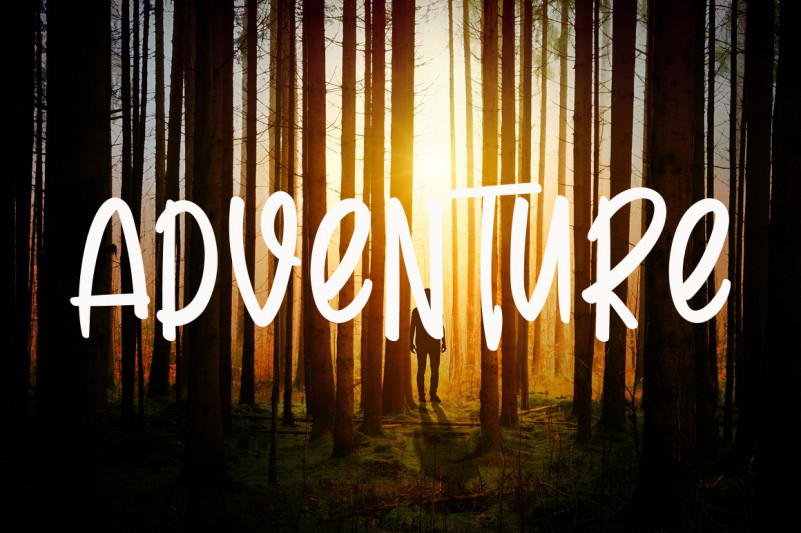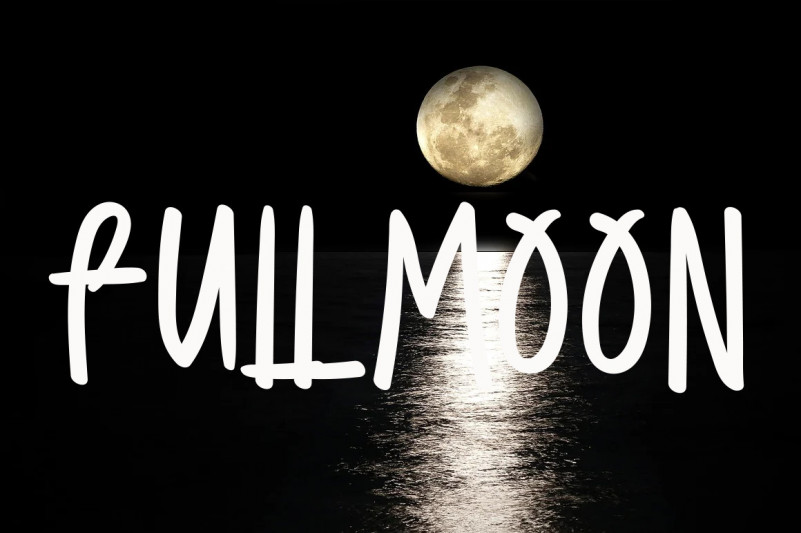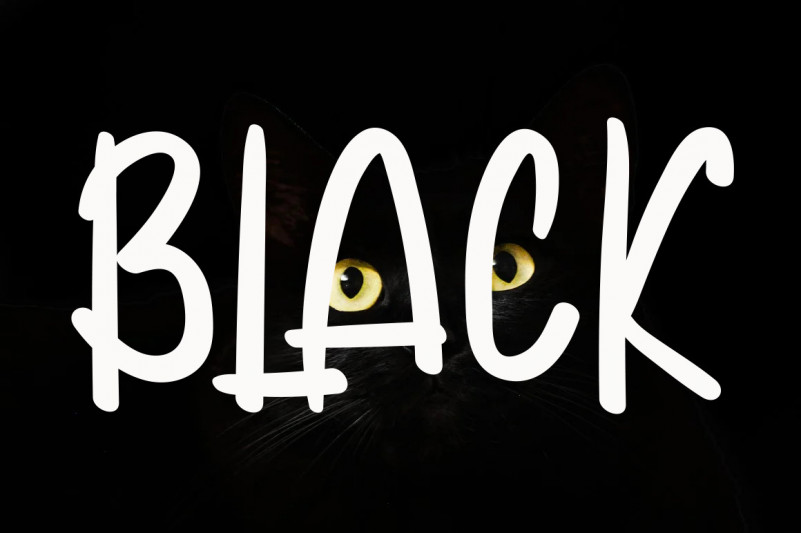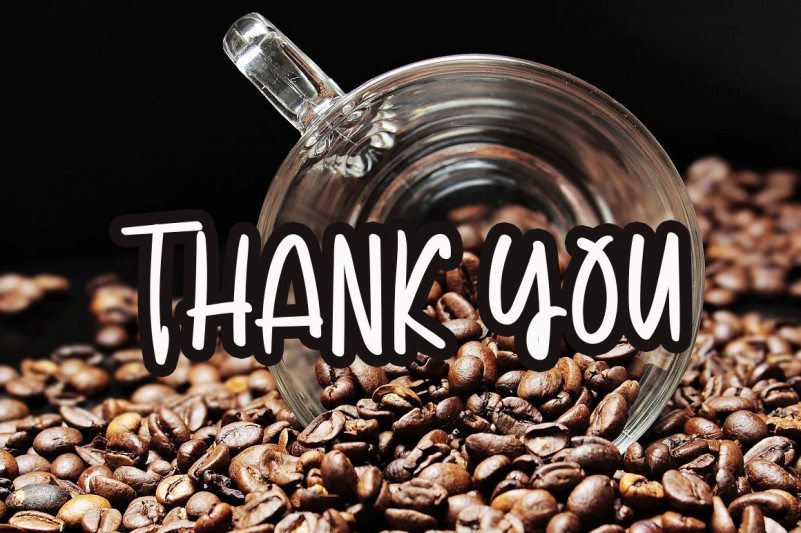
Baby Mermaid Display Font
This is a relaxed, cool and friendly handwritten font. This adaptable font will look great on a variety of design ideas. It will add a trendy and neat touch to each of your projects!